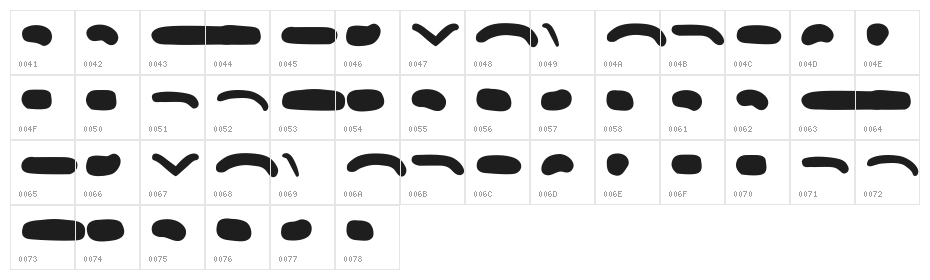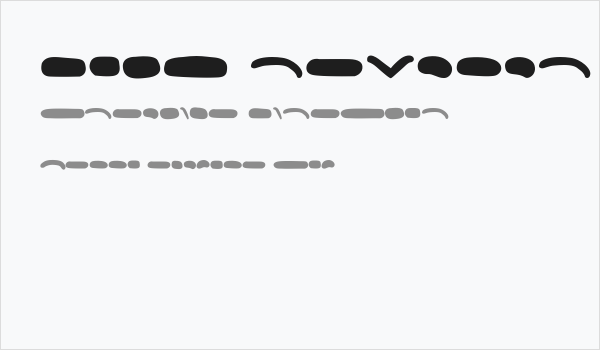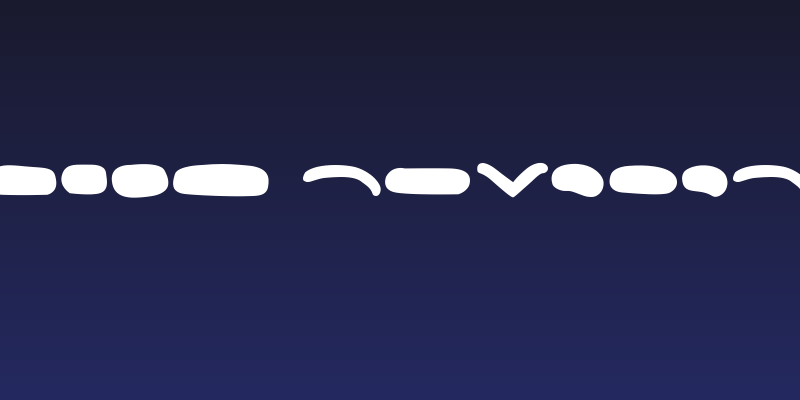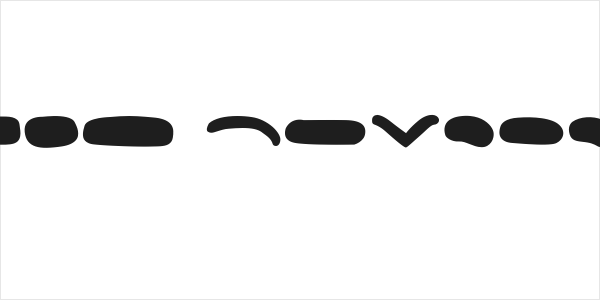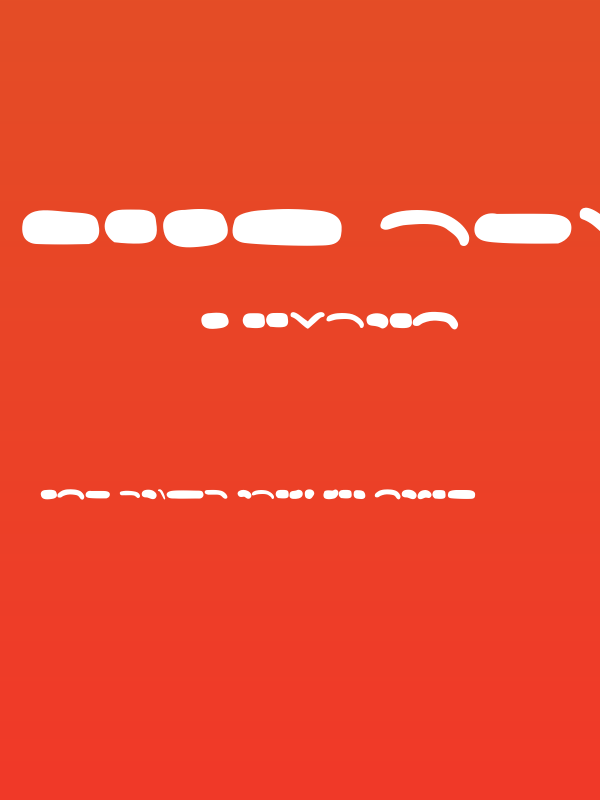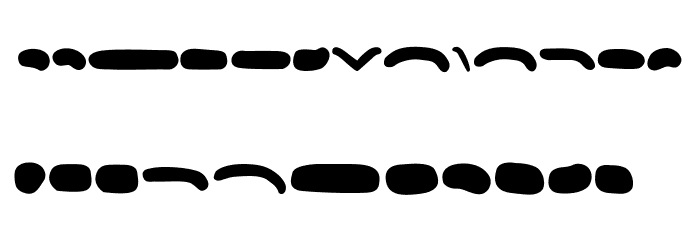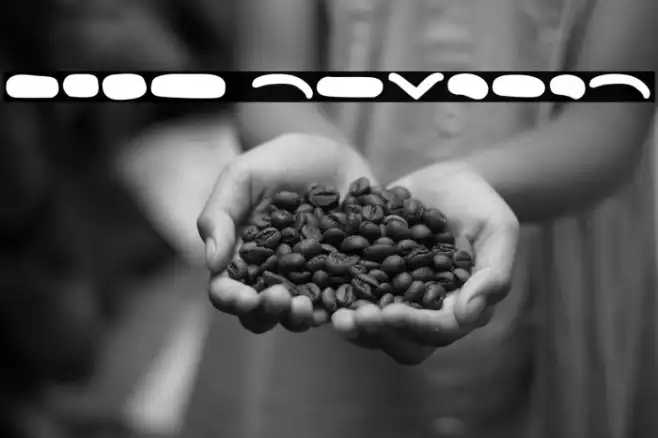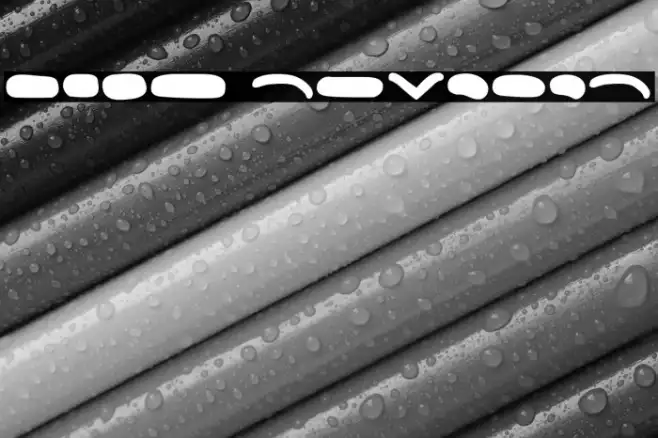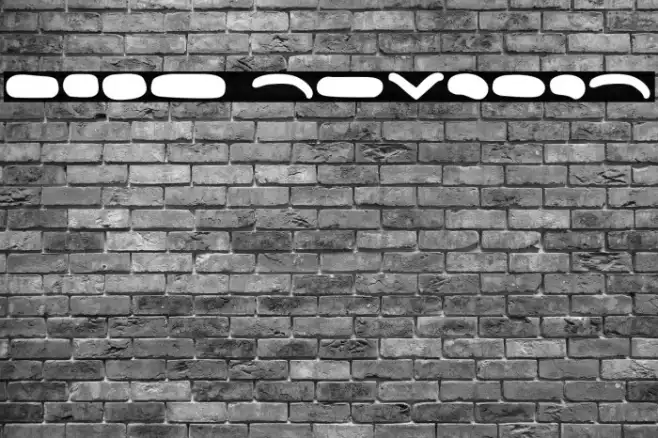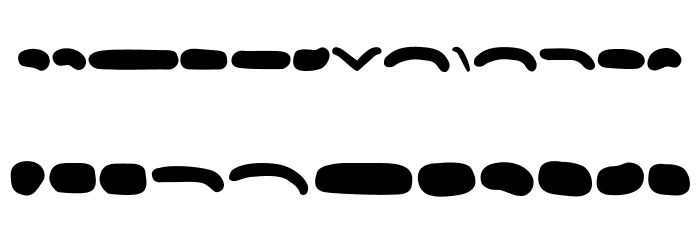
Dots Regular Font
Dots Regular Description
This font features a unique and playful design, characterized by its dot-like, rounded shapes that form each character. The letters are composed of bold, circular elements that give a sense of whimsy and creativity. The overall appearance is highly decorative, making it stand out with its unconventional style. The font's design is consistent across both uppercase and lowercase letters, as well as numbers and special characters, maintaining a cohesive look. Its distinctiveness lies in the way it transforms traditional letterforms into abstract, dot-based representations, offering a modern and artistic flair.